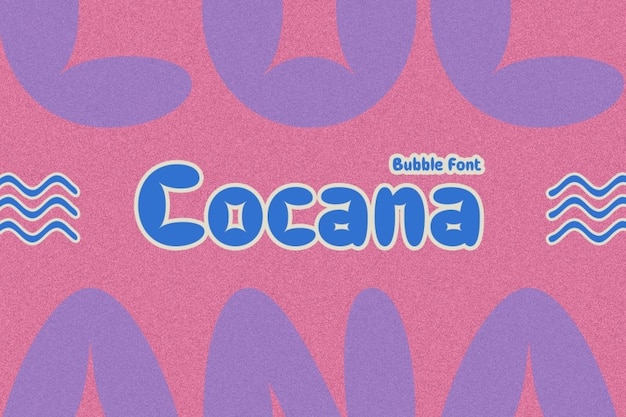
Cocana Regular Font
"Cocana Regular" font embodies a delightful fusion of boldness and charm, with rounded curves reminiscent of playful bubbles. Its robust design exudes confidence, making a statement while maintaining a friendly demeanor. Perfect for projects that demand attention with a touch of whimsy, it's the font of choice for those who dare to stand out with flair and style.